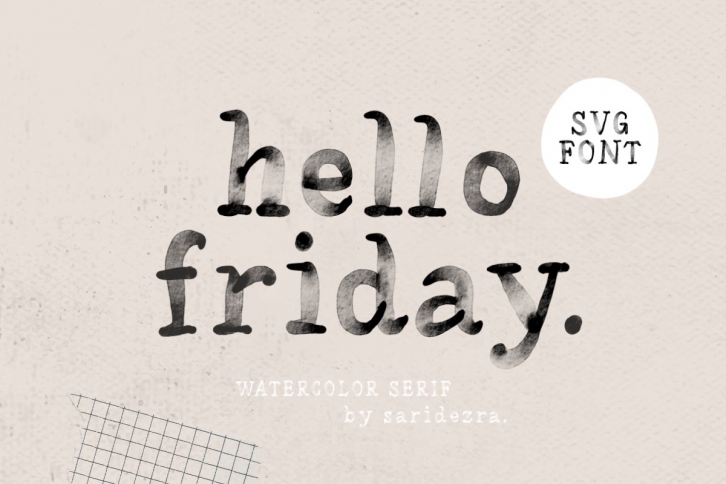
Hello Friday - Watercolor SVG Font Download
Hello Friday is a trendy and unique font with an authentic style. It was designed by Saridezra and it's a great choice for creative people who need such a font. It was released on February 27, 2021 and the file size is 14.43 MB. Hello Friday will add an organic vibe to any design idea!